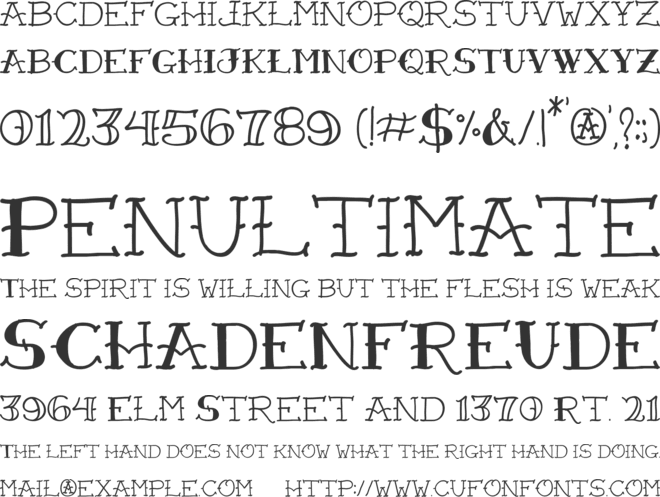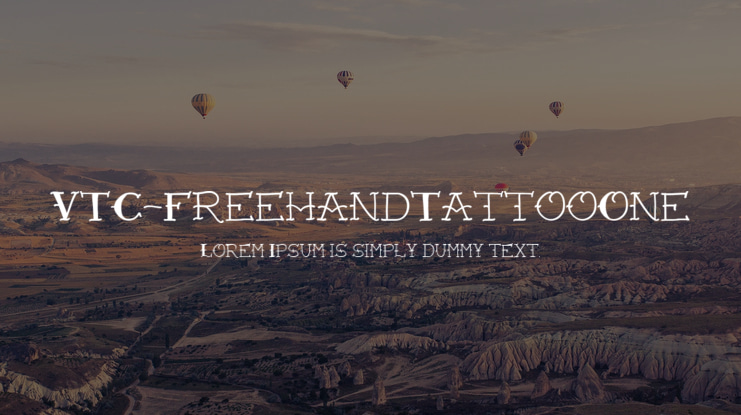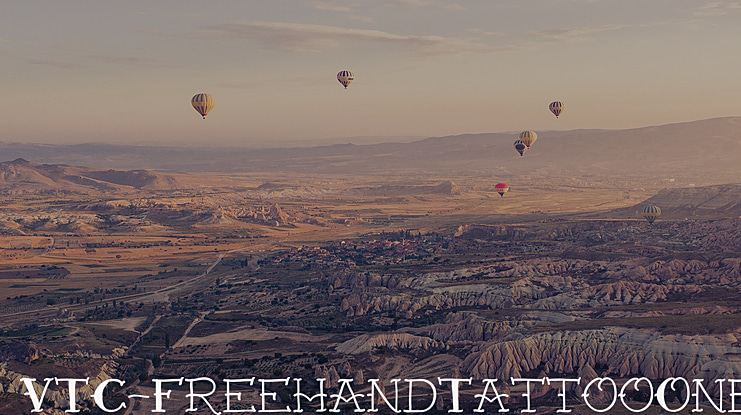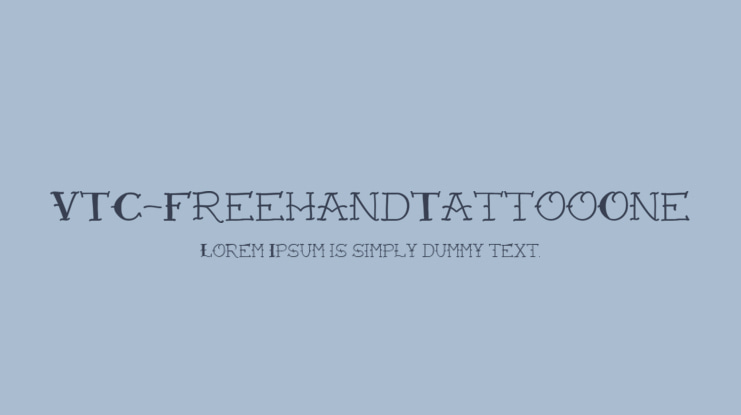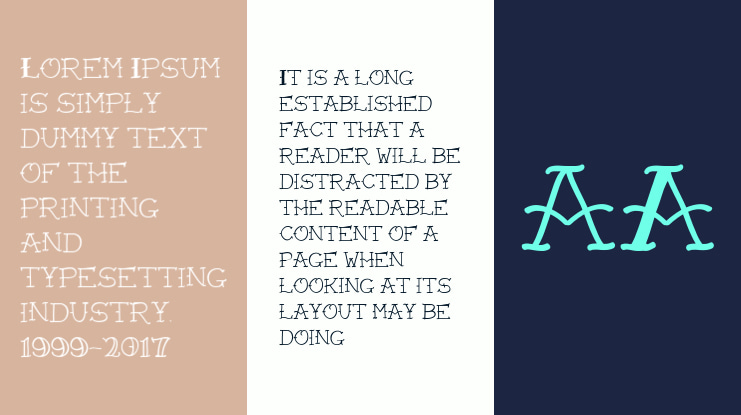
I did this as a test of illustrators new blob paint tool, I did the whole
font freehand with a wacom tablet, I didn't do any editing in fontlab at
all except for spacing and such.
This was a lot of fun to make like that, it went fast as hell, maybe an
hour or so total.
I'll go back in and refine it more later on but I like the raw hand drawn
look :)